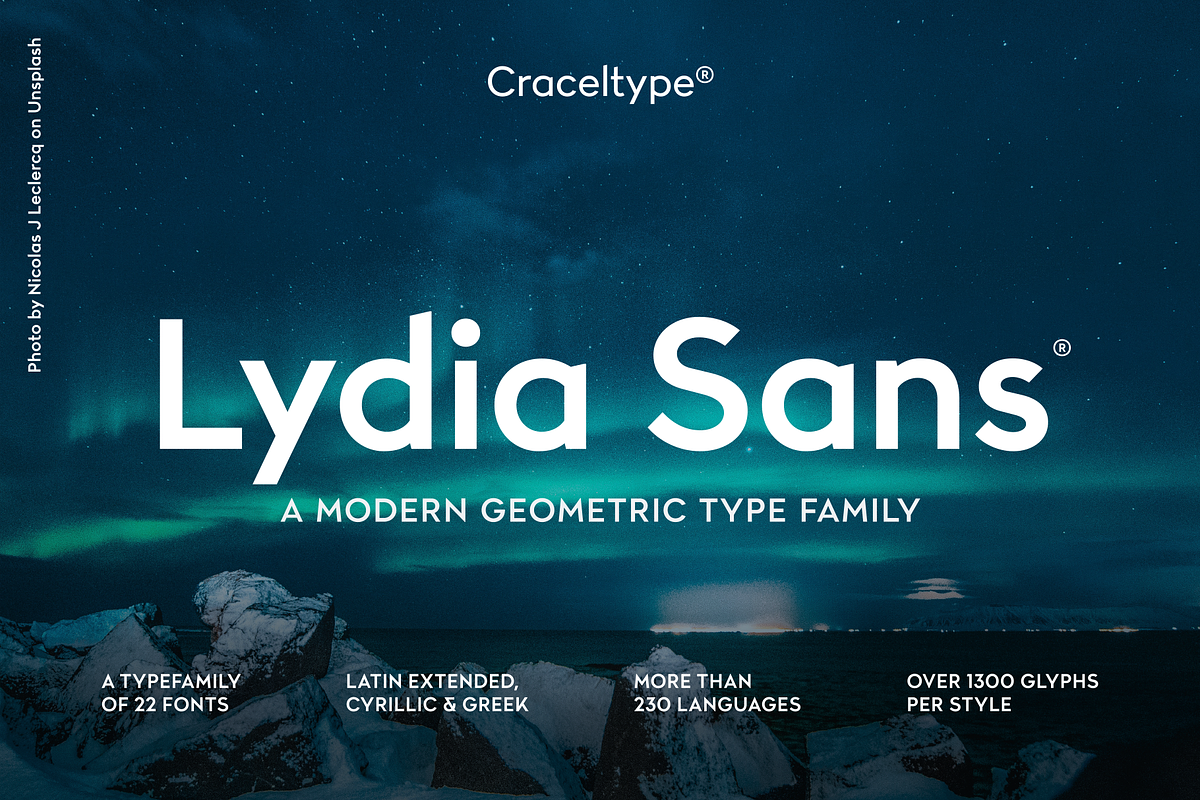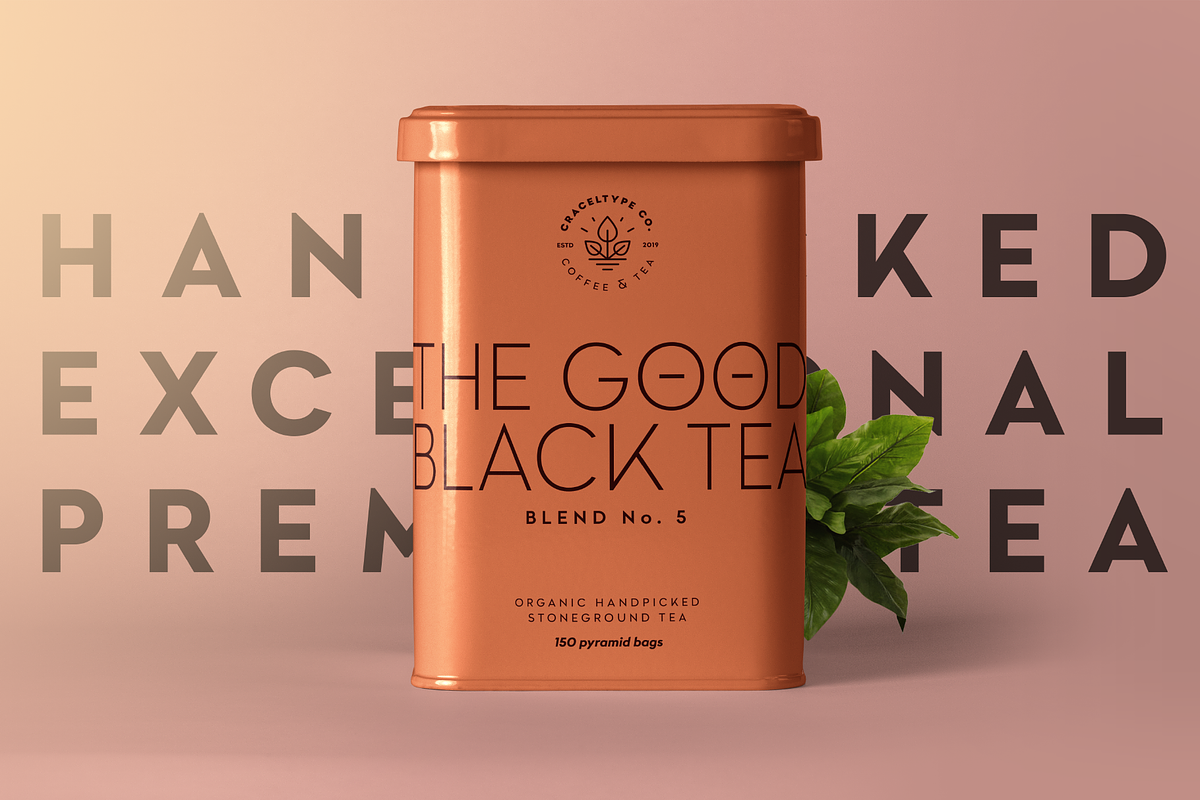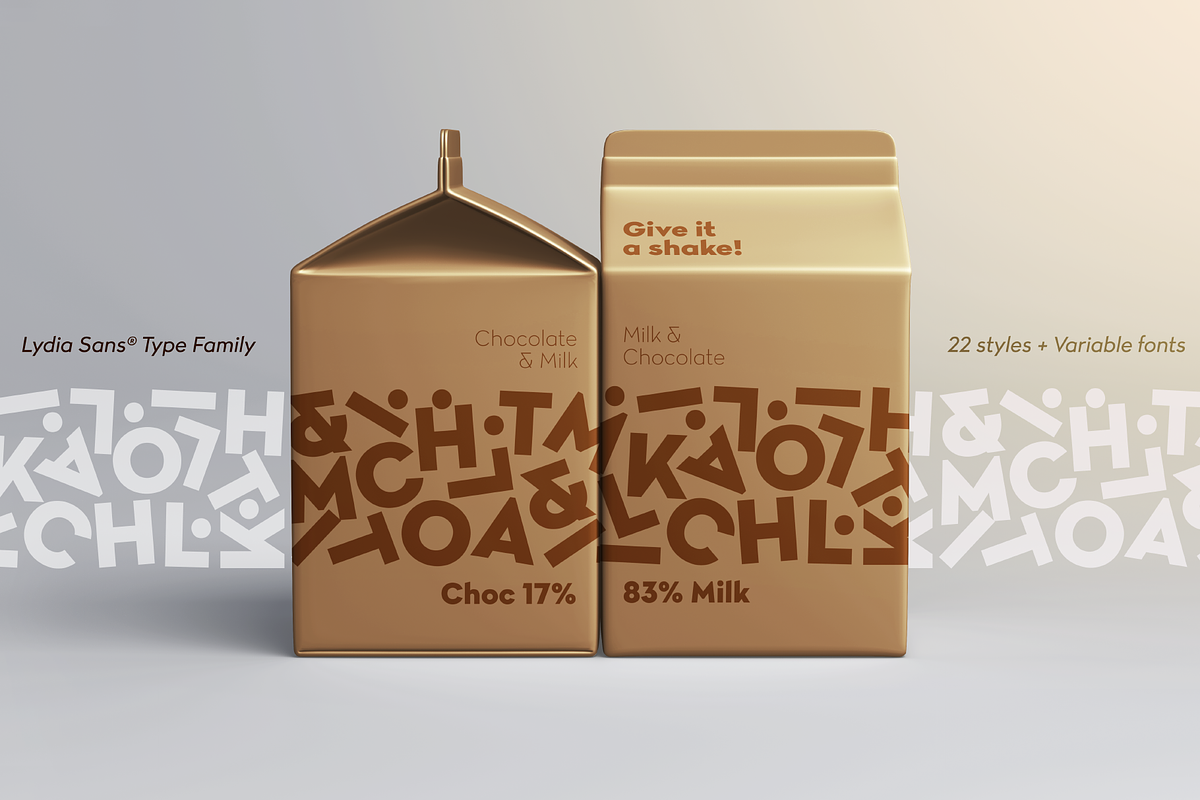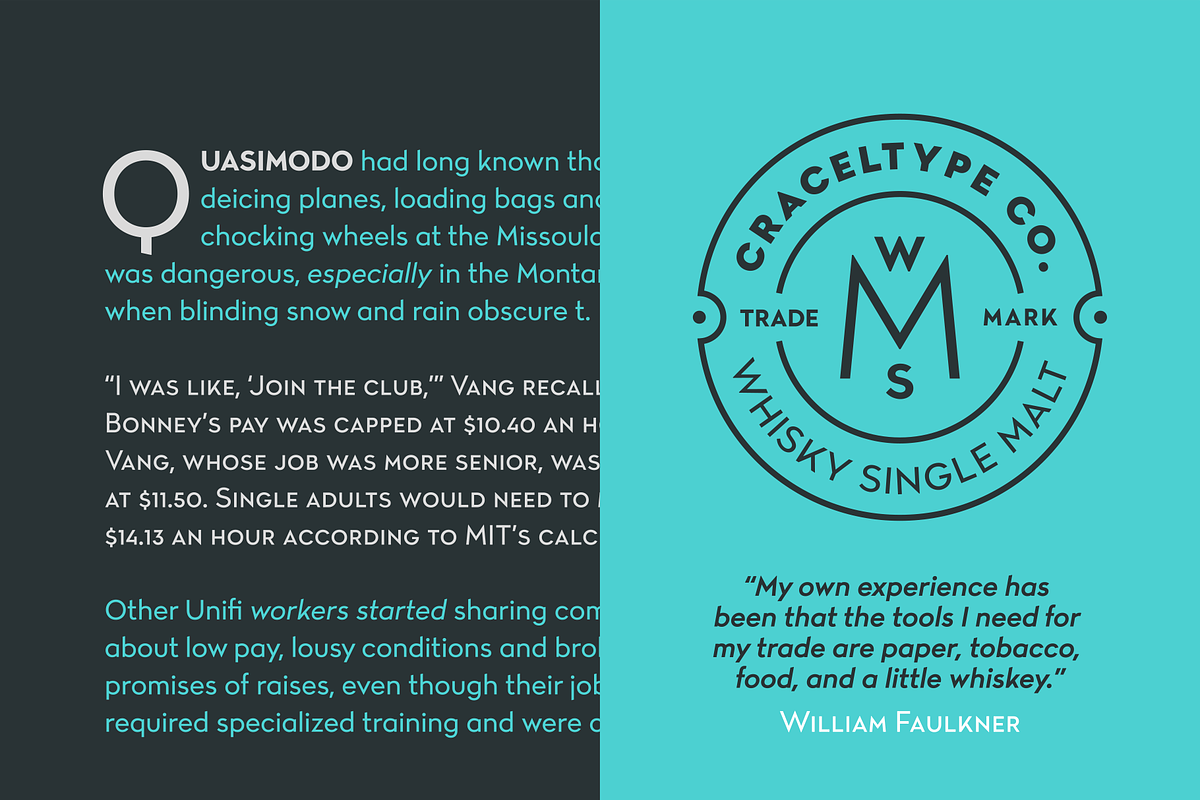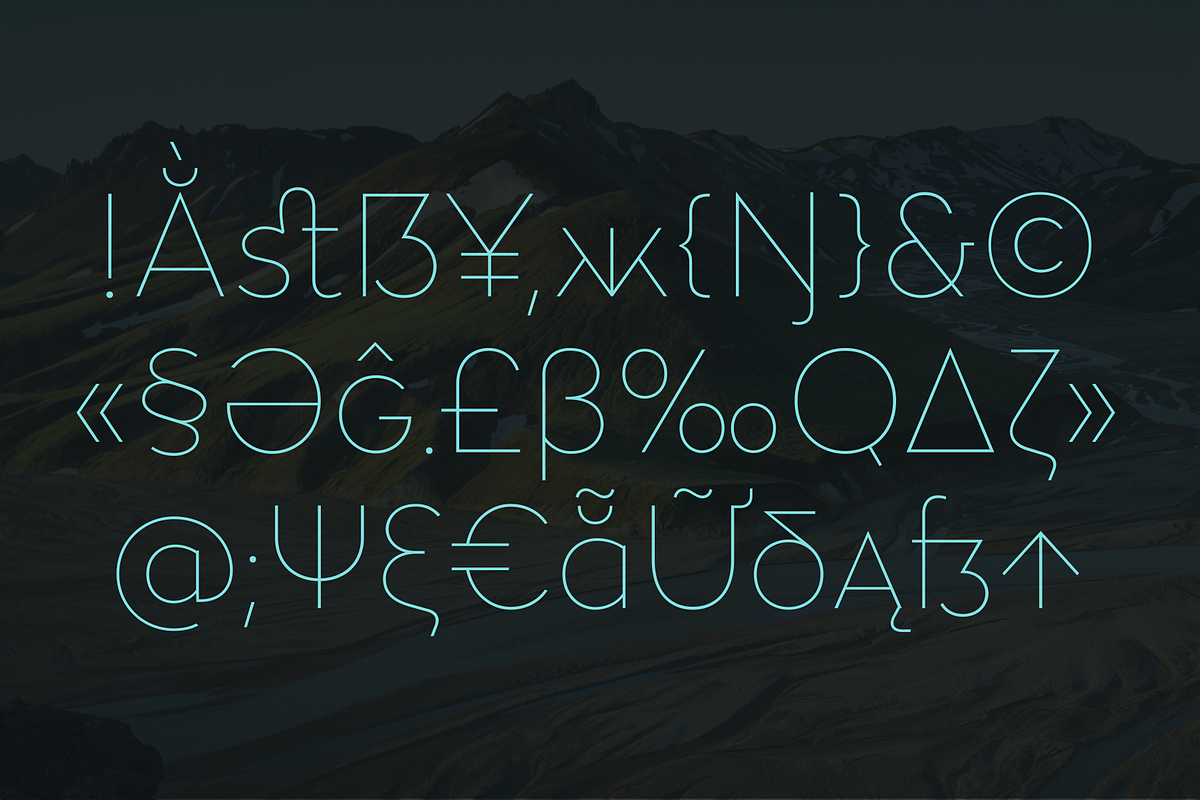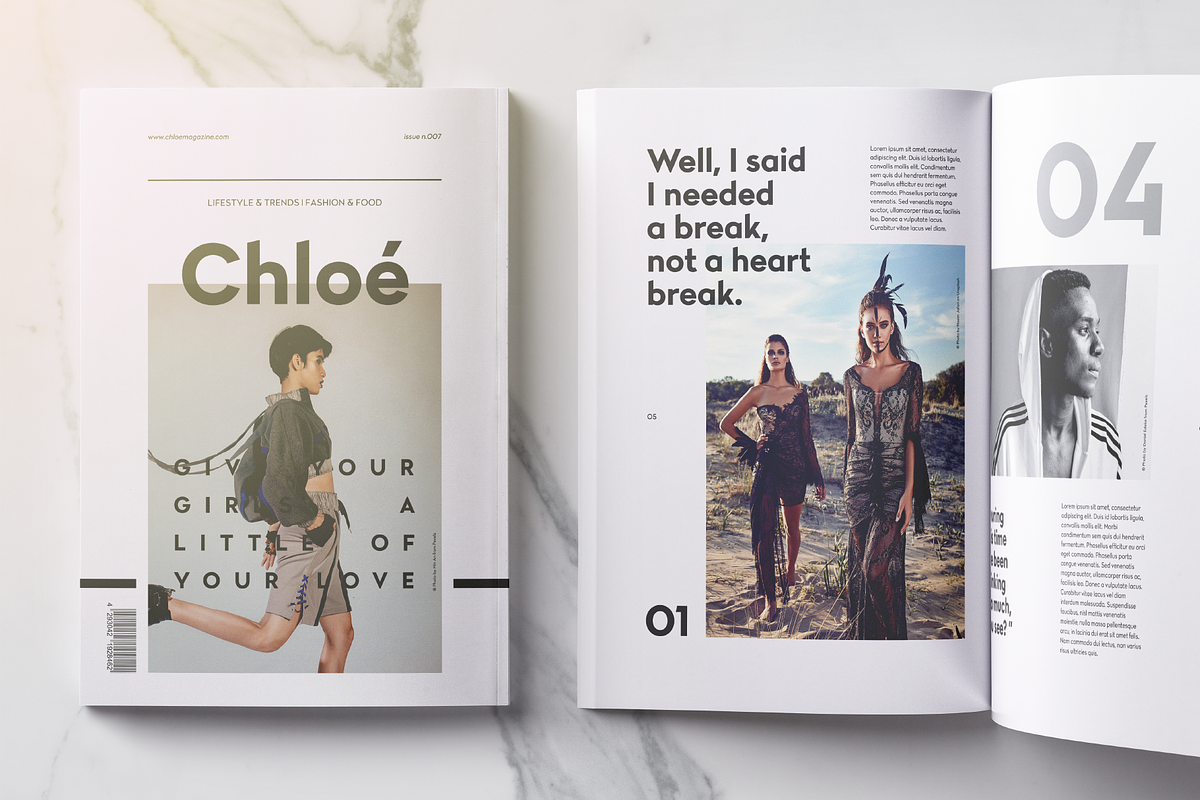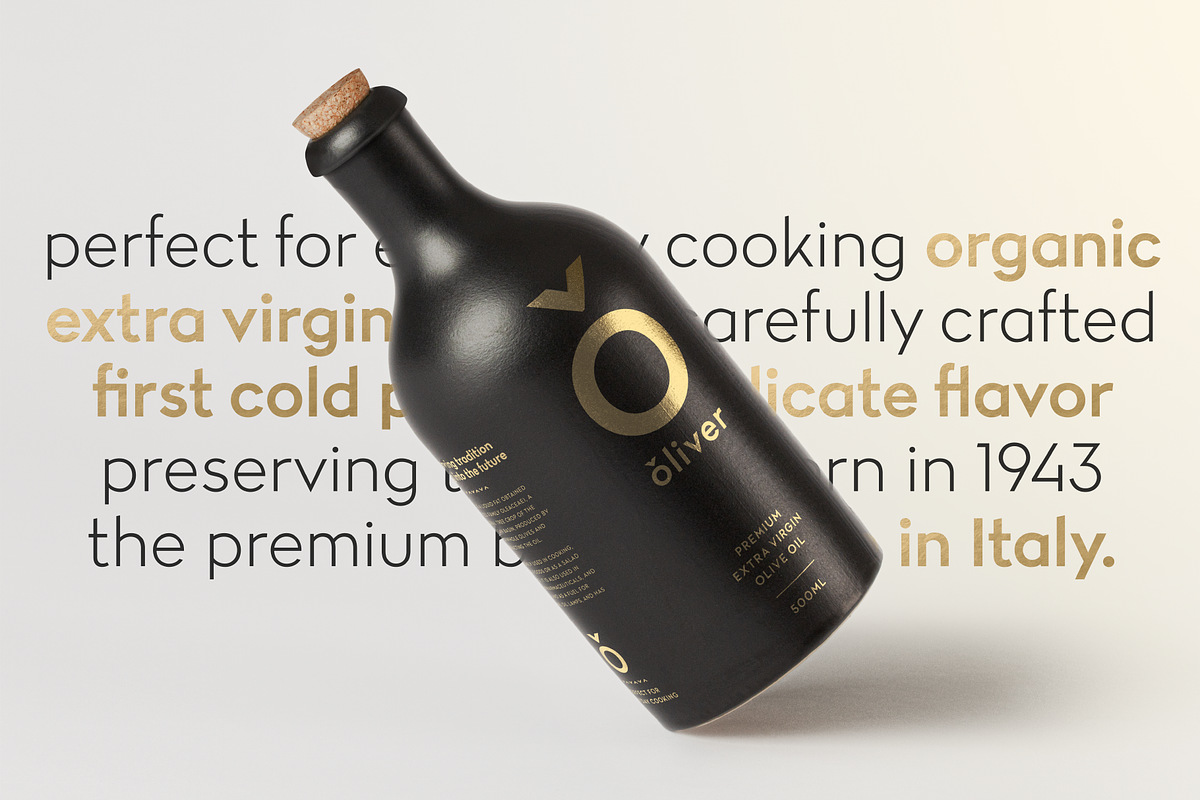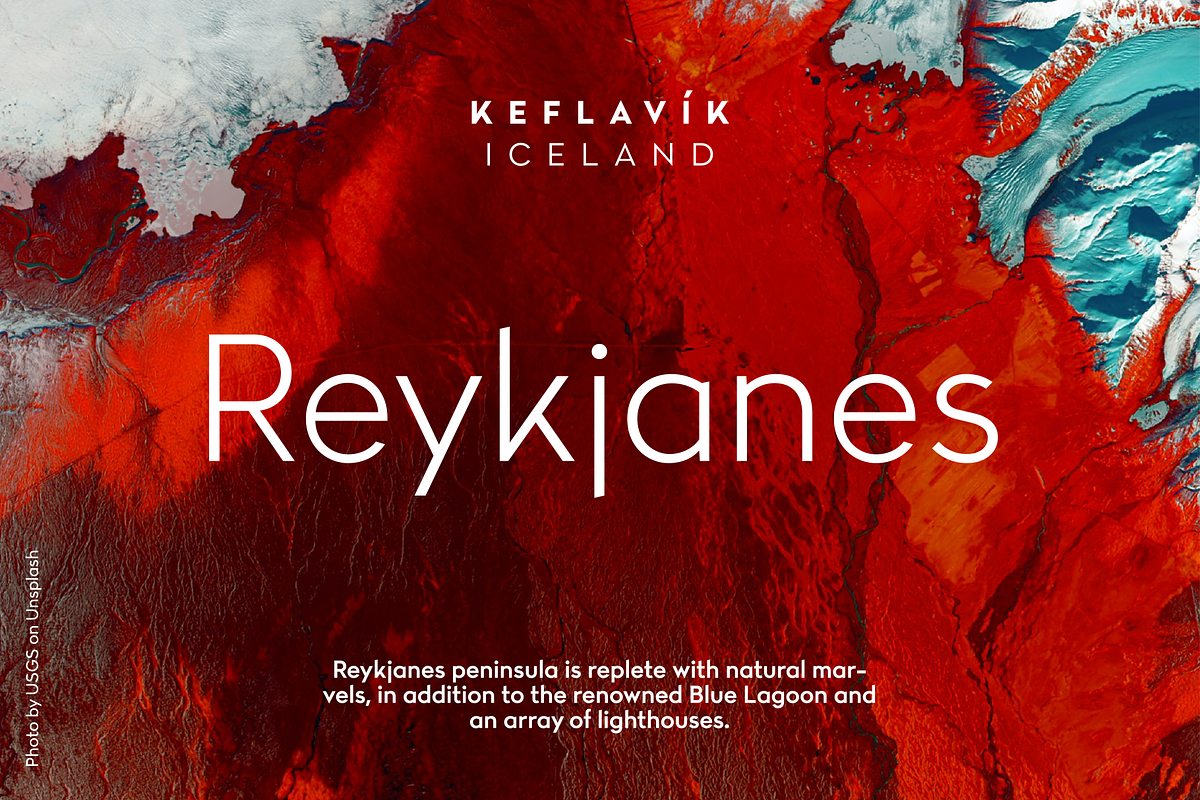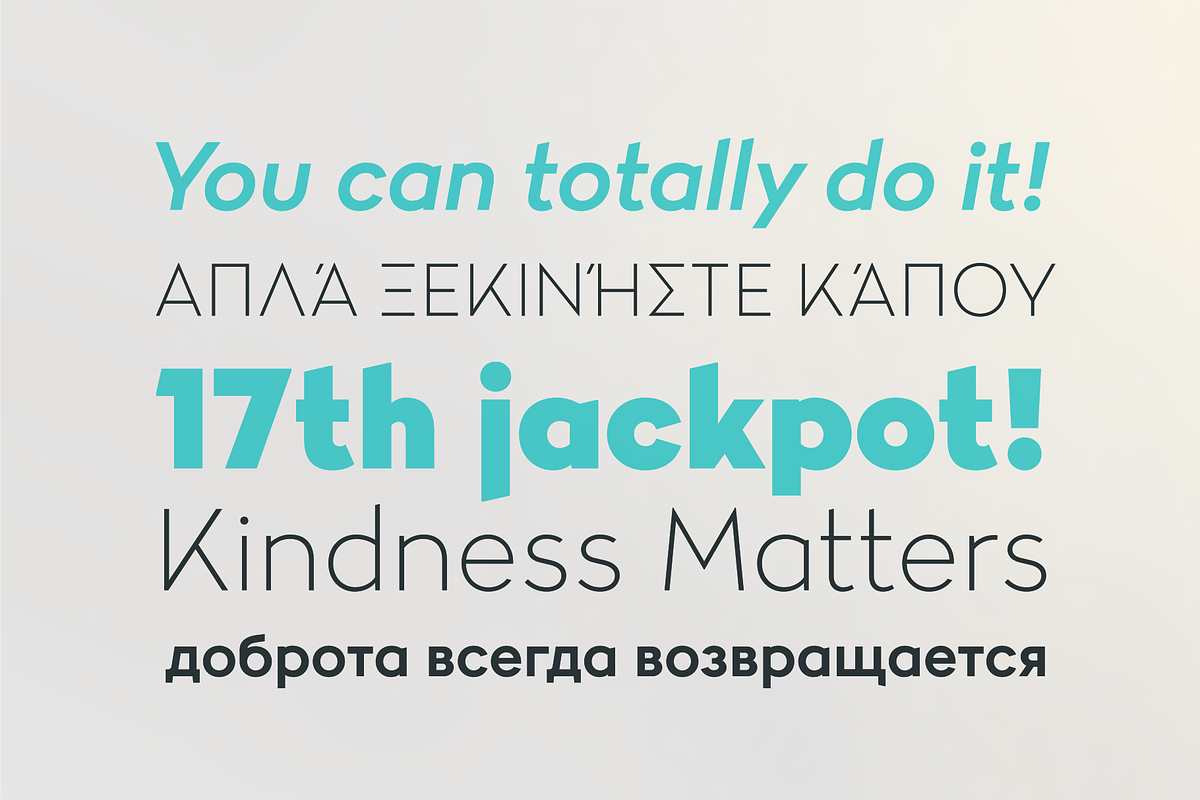
Lydia Sans
The impulse for creating a new typeface might come from a picture, a moment, or sometimes from a person. Lydia Sans was named after my dear grandmother, born in 1930. Graceful and direct — those were the leading insights for the first drafts of this type family. It blends the simplicity and elegance of 1930s modernist typography, capturing the essence of that era while presenting great legibility and a deep proclivity for nostalgia.
This typeface has 22 distinct styles and over 1300 glyphs per style. Covering more than 230 languages, including extended Latin, Cyrillic, and Greek, Lydia Sans boasts exceptional flexibility and readability, embodying a timeless charm perfect for any inspired project. Thank you, Grandma.